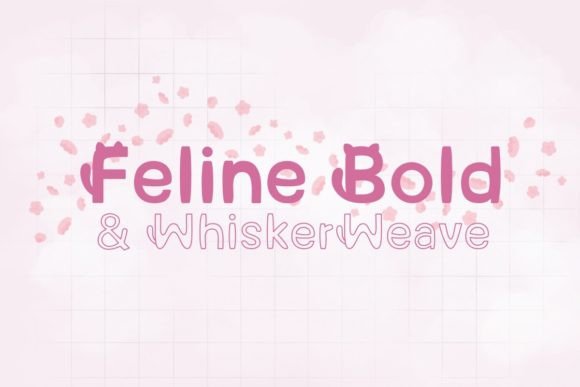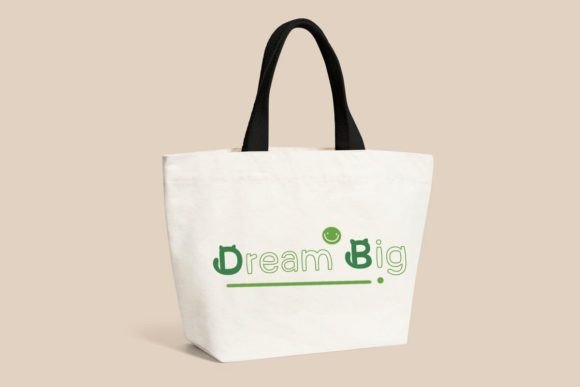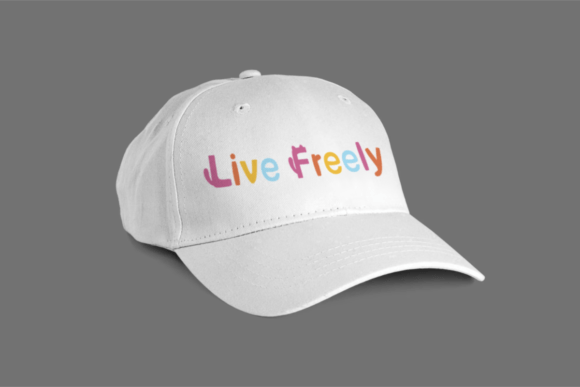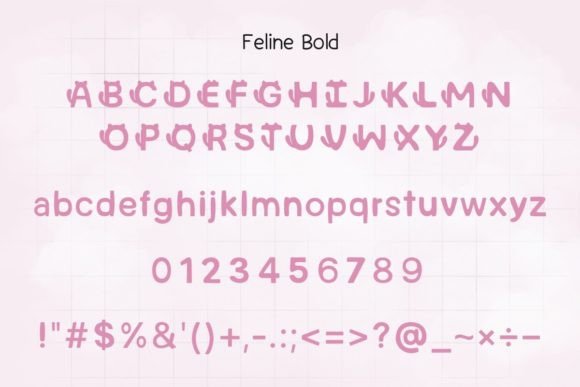
Feline Bold & Whisker Weave Font
About the Feline Bold & Whisker Weave Font
The Feline Bold & Whisker Weave Font offers a perfect balance of form and function for your design needs. Feline Bold & WhiskerWeave
It’s a font that has cat-like ears and a tail. Let the letters be cute with the 2 types to choose from.
Ideal for creating new designs. Various products to match Including banners, content, mugs, cards, shirts, and more.
Feline Bold is best suited for headlines, short display text, and branding elements where a playful yet bold personality is desired. It works well on packaging, posters, and social media graphics. However, its decorative nature makes it less suitable for body copy or UI elements requiring high readability, such as long paragraphs or website navigation.
The playful curves of Whisker Weave complement Feline Bold, offering a slightly softer counterpoint. For a more sophisticated look, pair Feline Bold with a clean sans-serif like Montserrat or a classic serif such as Garamond. These pairings provide visual contrast while maintaining a cohesive design aesthetic.
The overall personality of Feline Bold & Whisker Weave is friendly and approachable, yet undeniably bold. It’s ideal for brands targeting a younger demographic or those wishing to project a fun, approachable image.
Feline Bold & Whisker Weave Font Usage Examples
Feline Bold & Whisker Weave Font Example